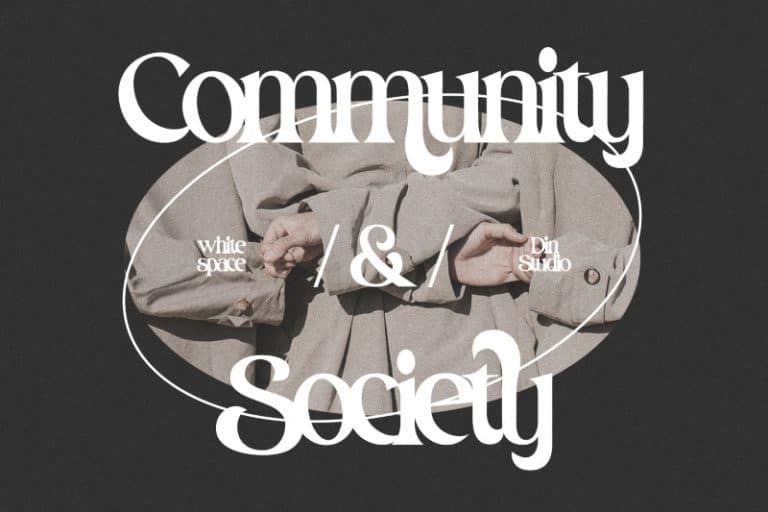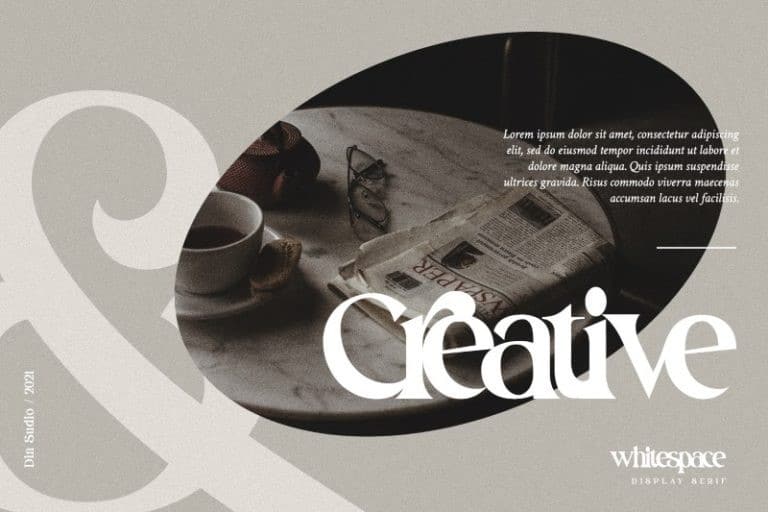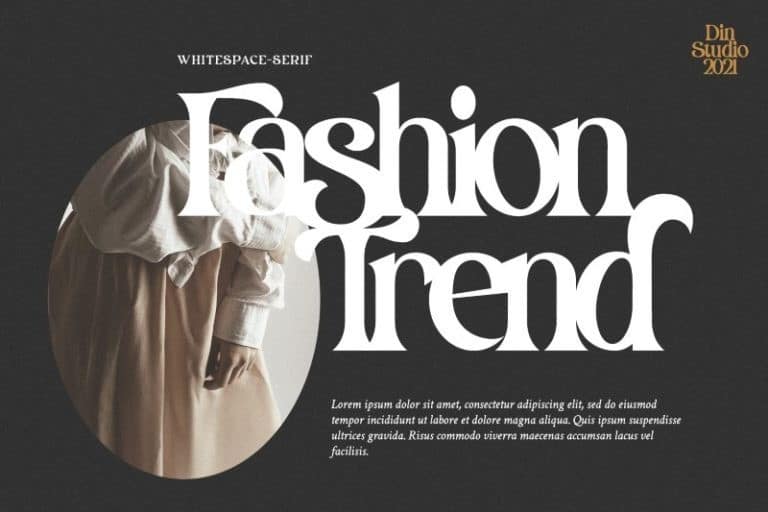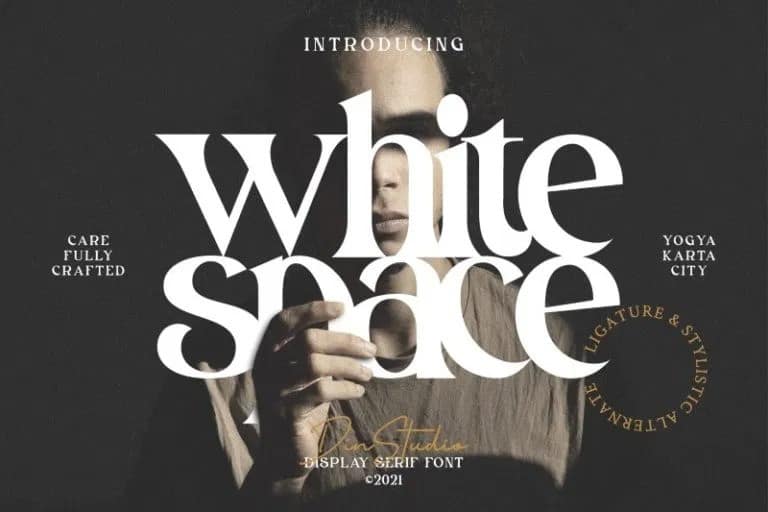
White Space Display Font
Introducing White Space Display Font a fancy, versatile and playful typeface. It’s designed and shared by Din Studio. This gorgeous, stylish and modern font can be used for a host of different content needs and projects. Ideal for social media banners; posts, and ads, printed quotes, t-shirt designs, packaging, or even as a modern text overlay to any background image.